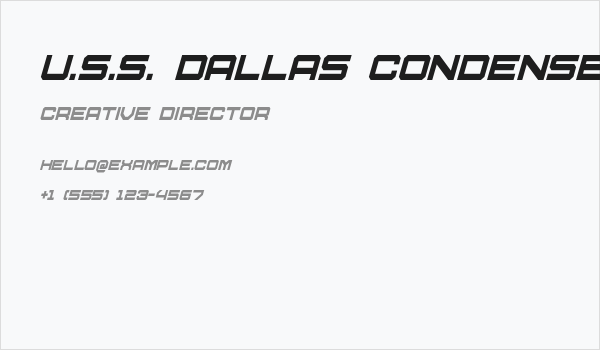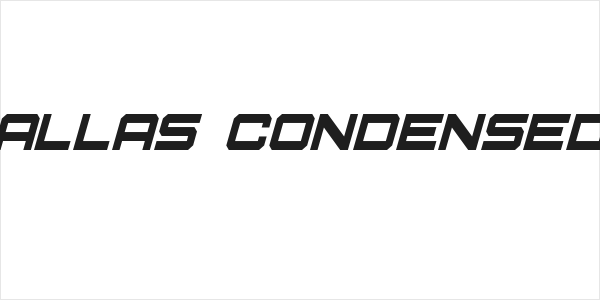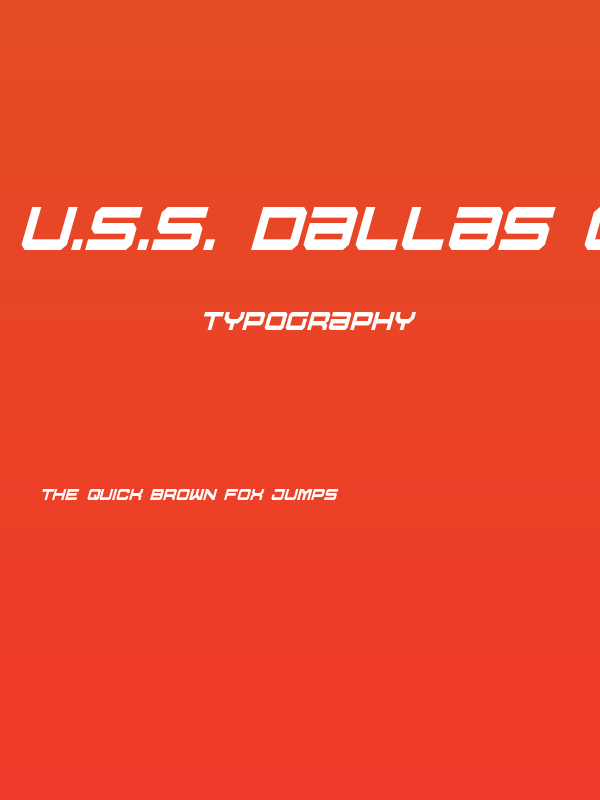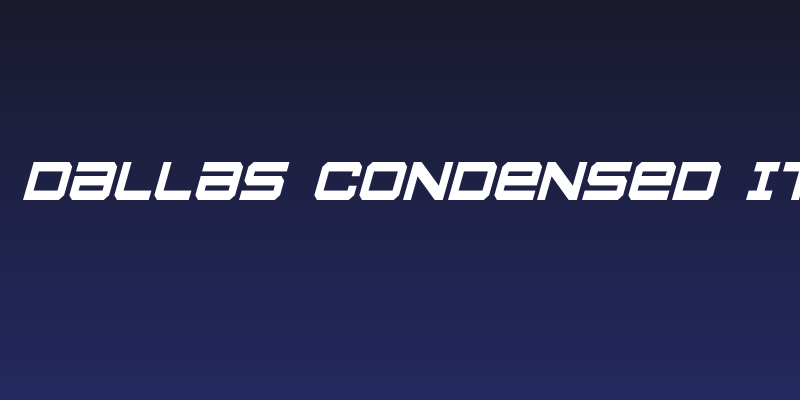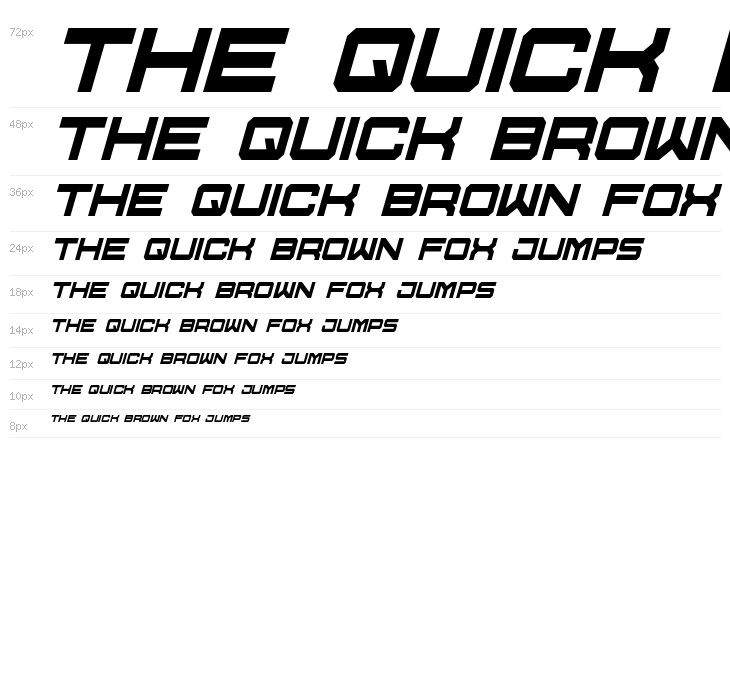
U.S.S. Dallas Condensed Italic Font
U.S.S. Dallas Condensed Italic Description
This font features a bold and dynamic design with a condensed and italicized style. The characters are angular and geometric, giving a futuristic and sporty appearance. The uppercase and lowercase letters maintain a consistent slant, enhancing the italic effect. The numbers and special characters follow the same design principles, ensuring uniformity across all elements. The overall look is sleek and modern, making it suitable for projects that require a strong visual impact.
| Use Case | Headlines, Logos, Advertising |
| Proposed Projects | Ideal for sports branding, automotive designs, tech-related projects, and dynamic advertising campaigns. |